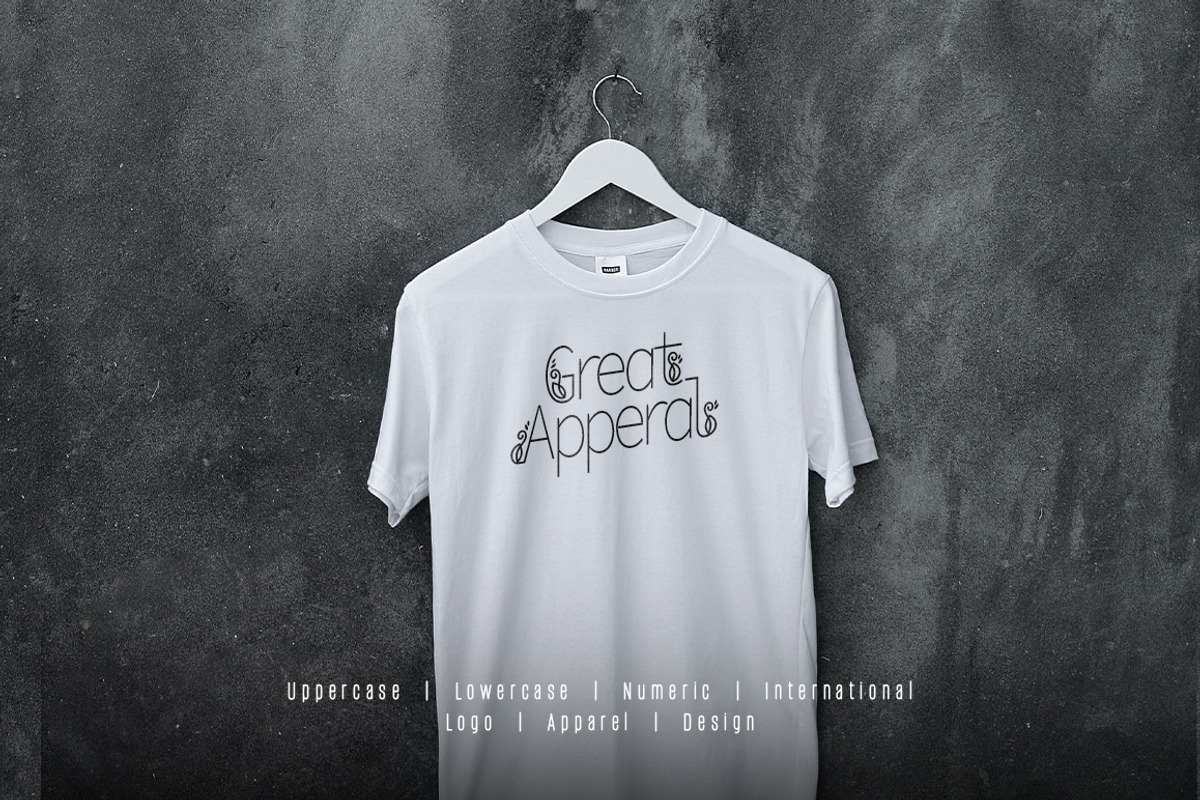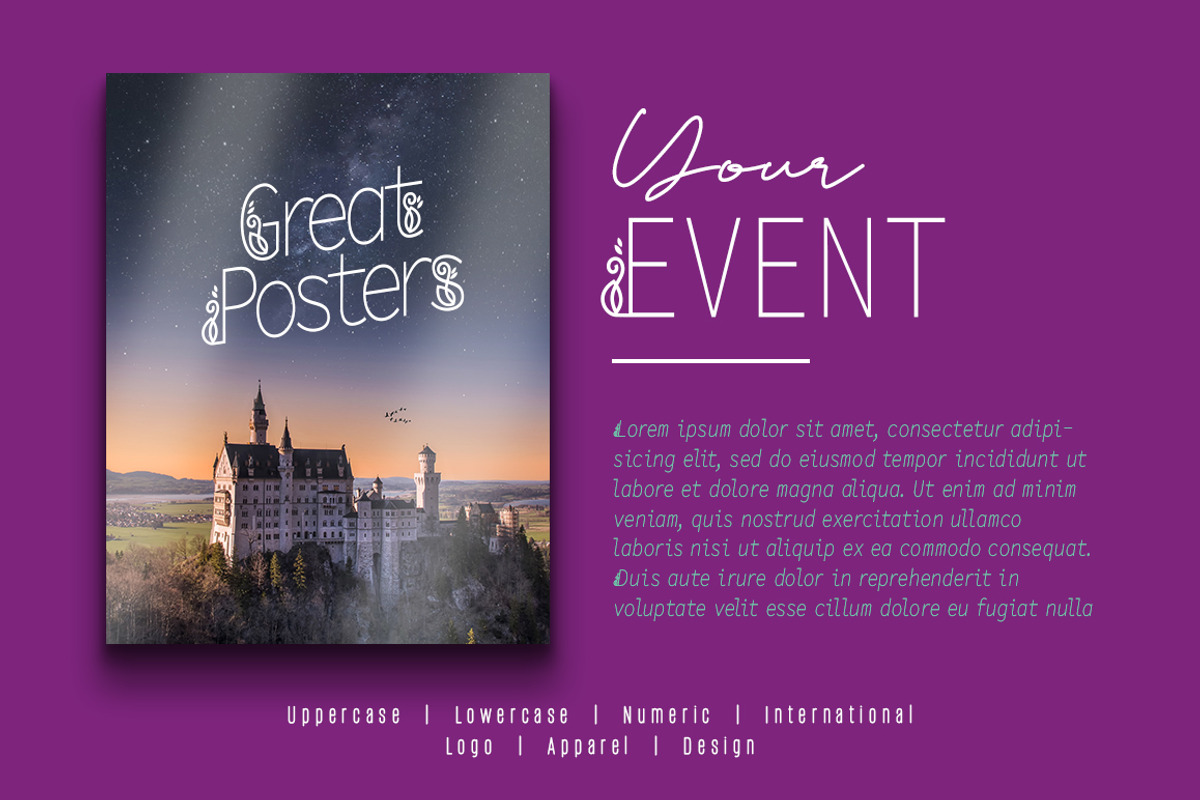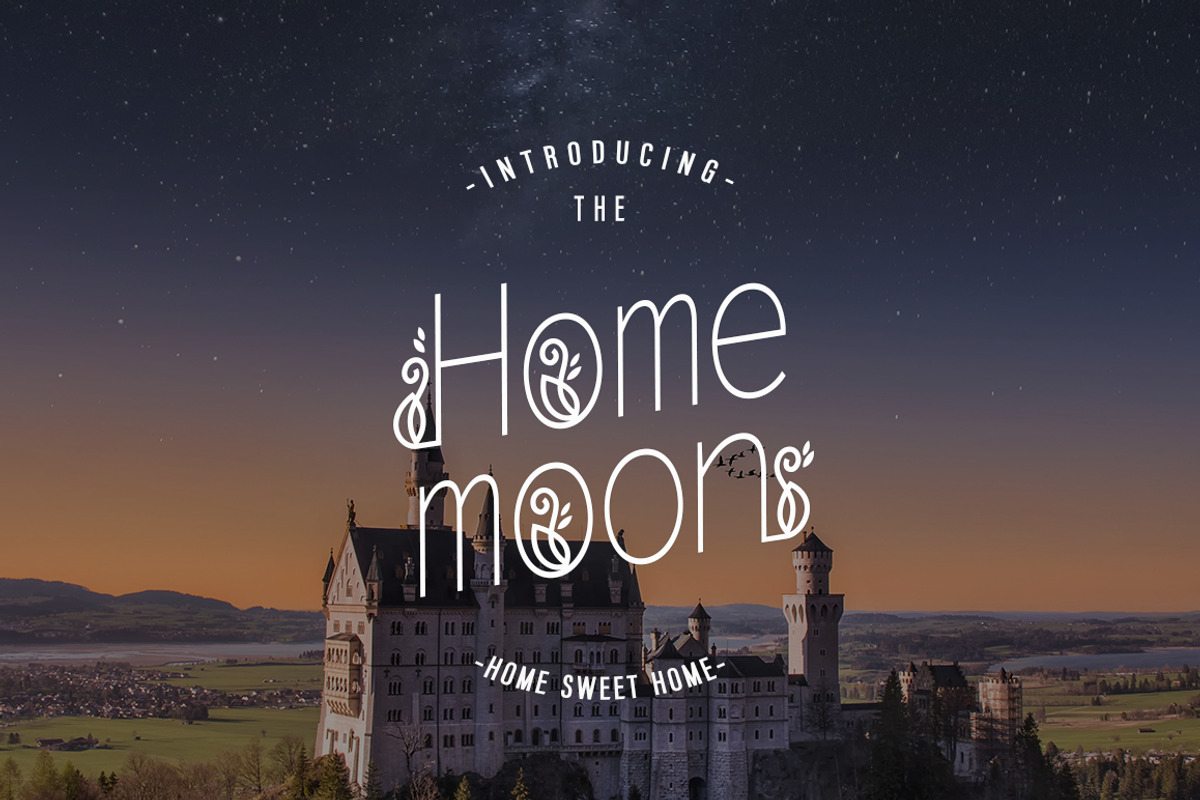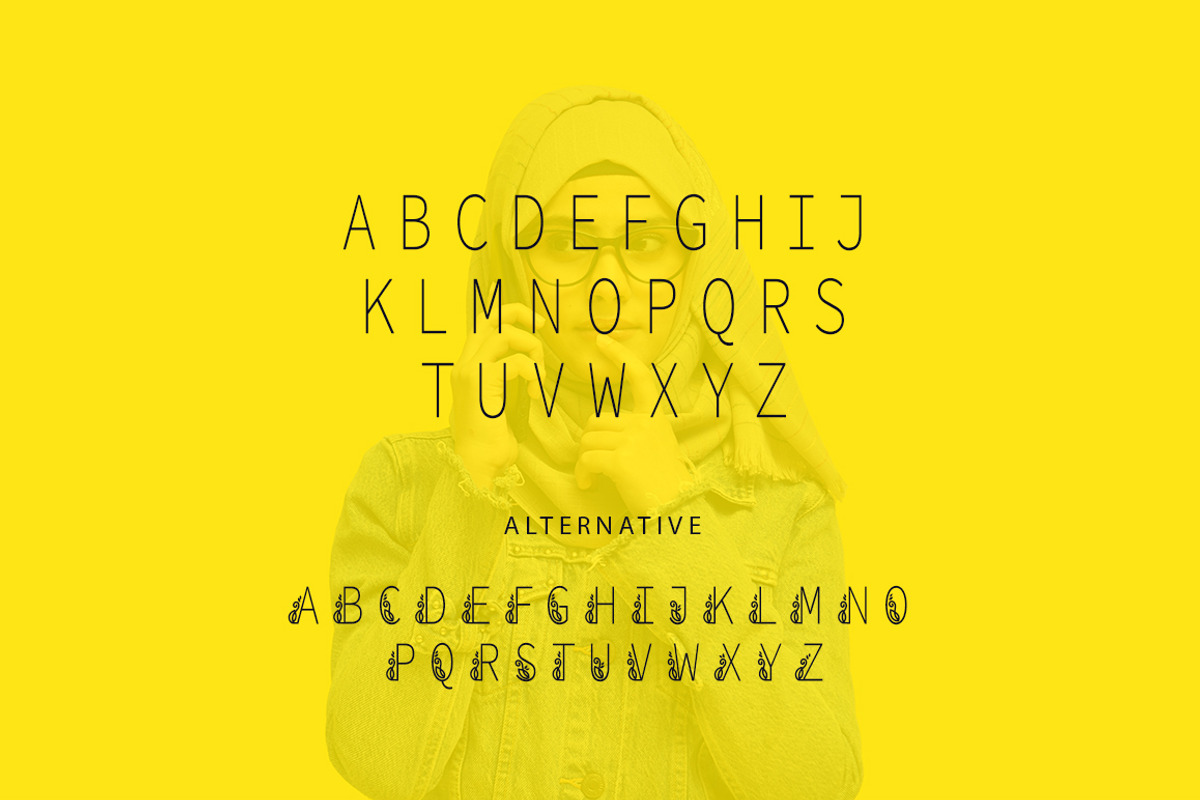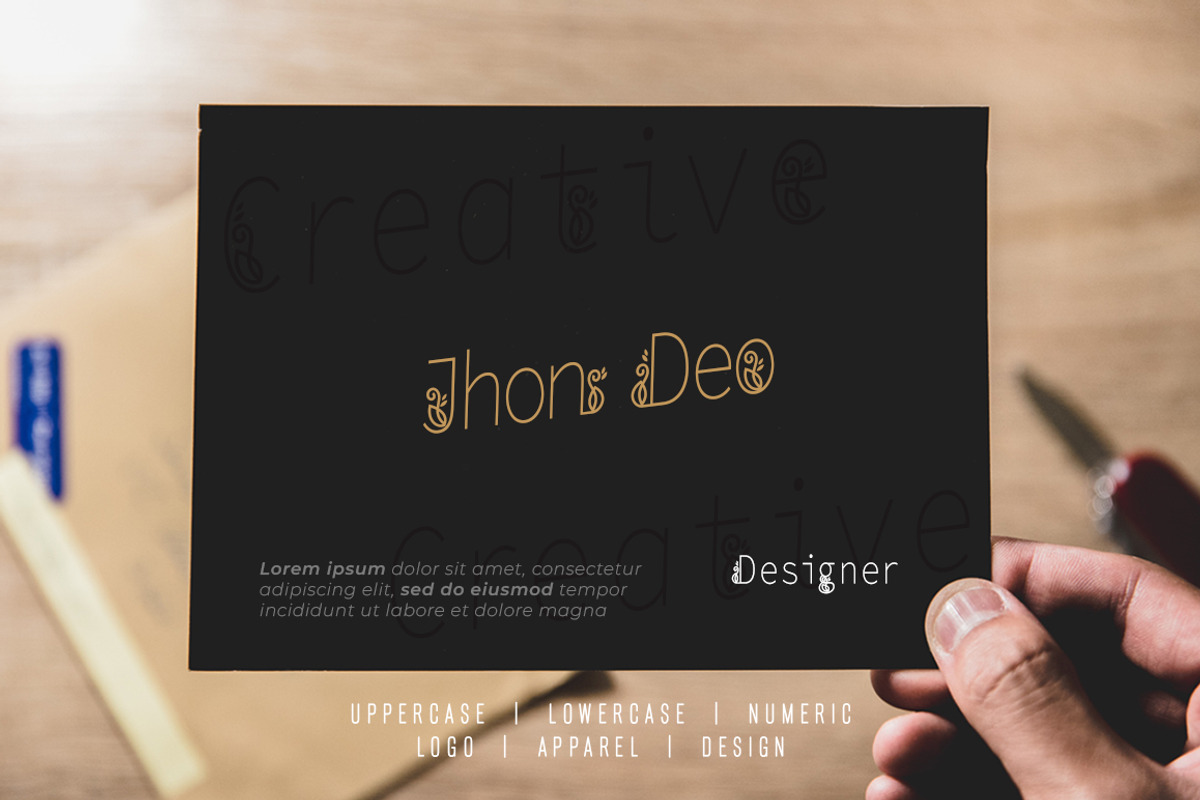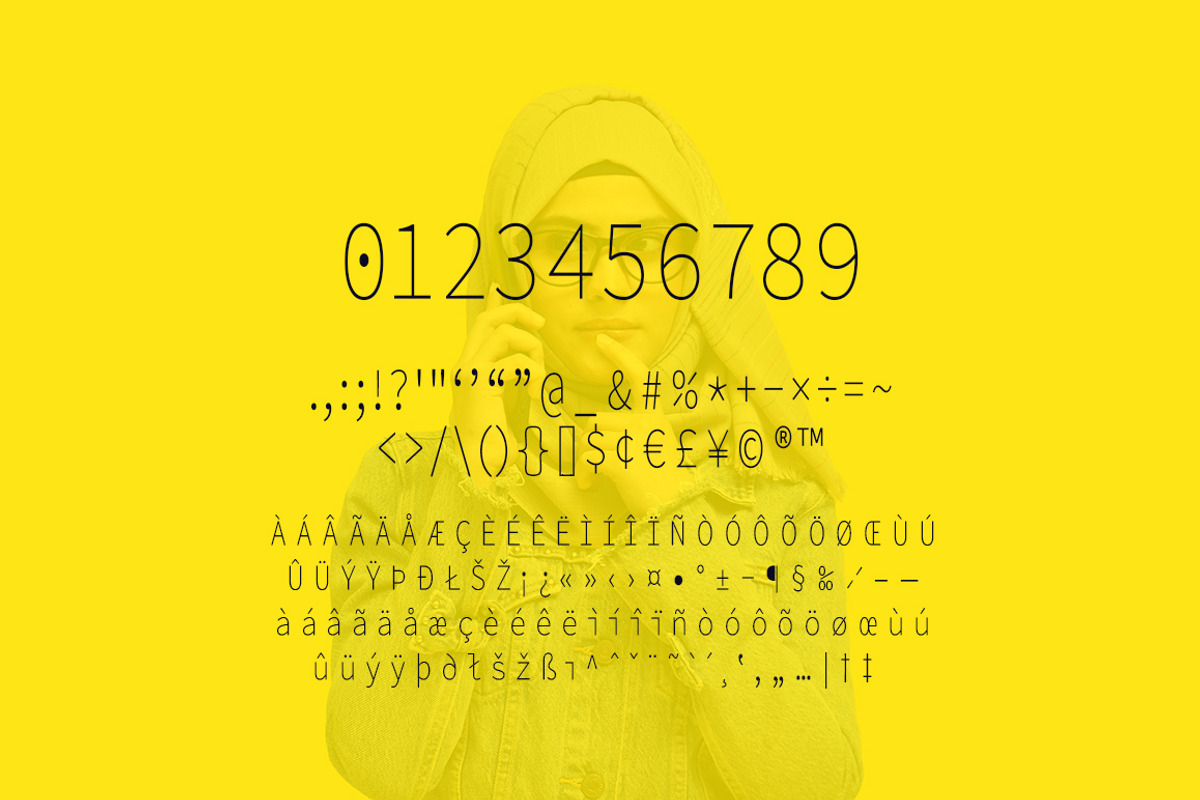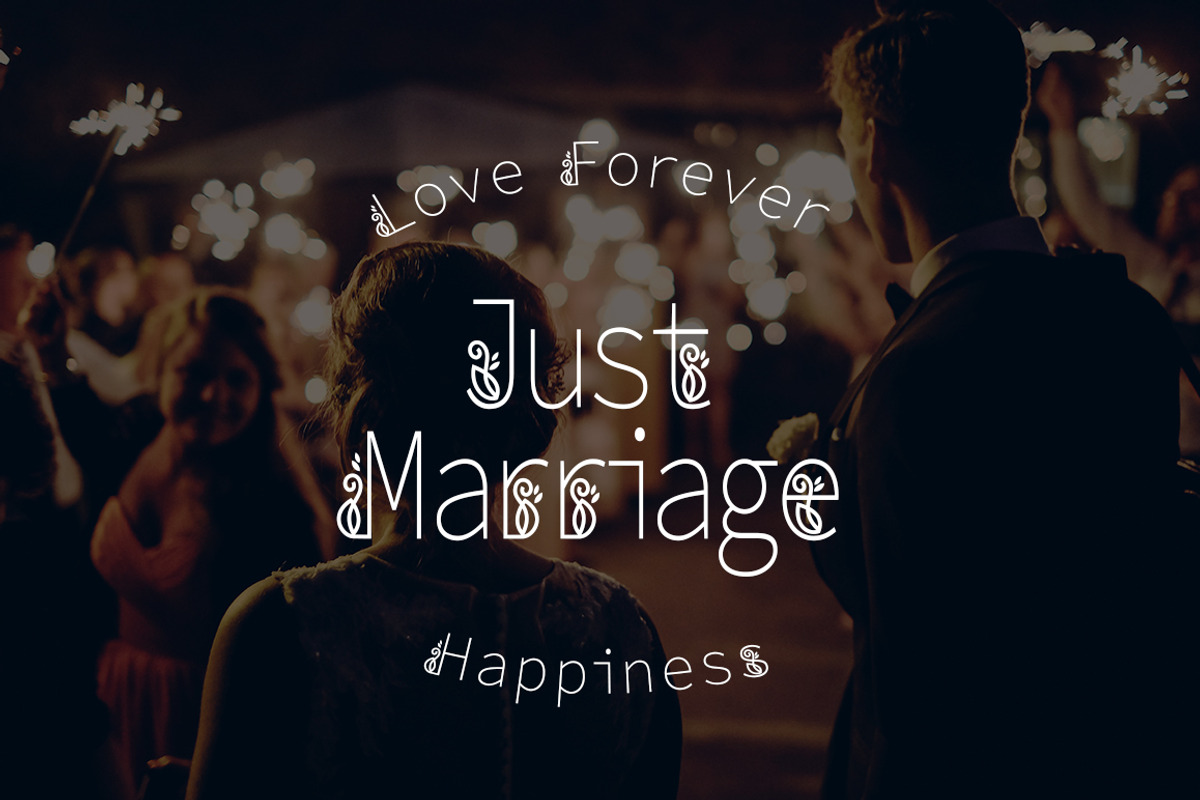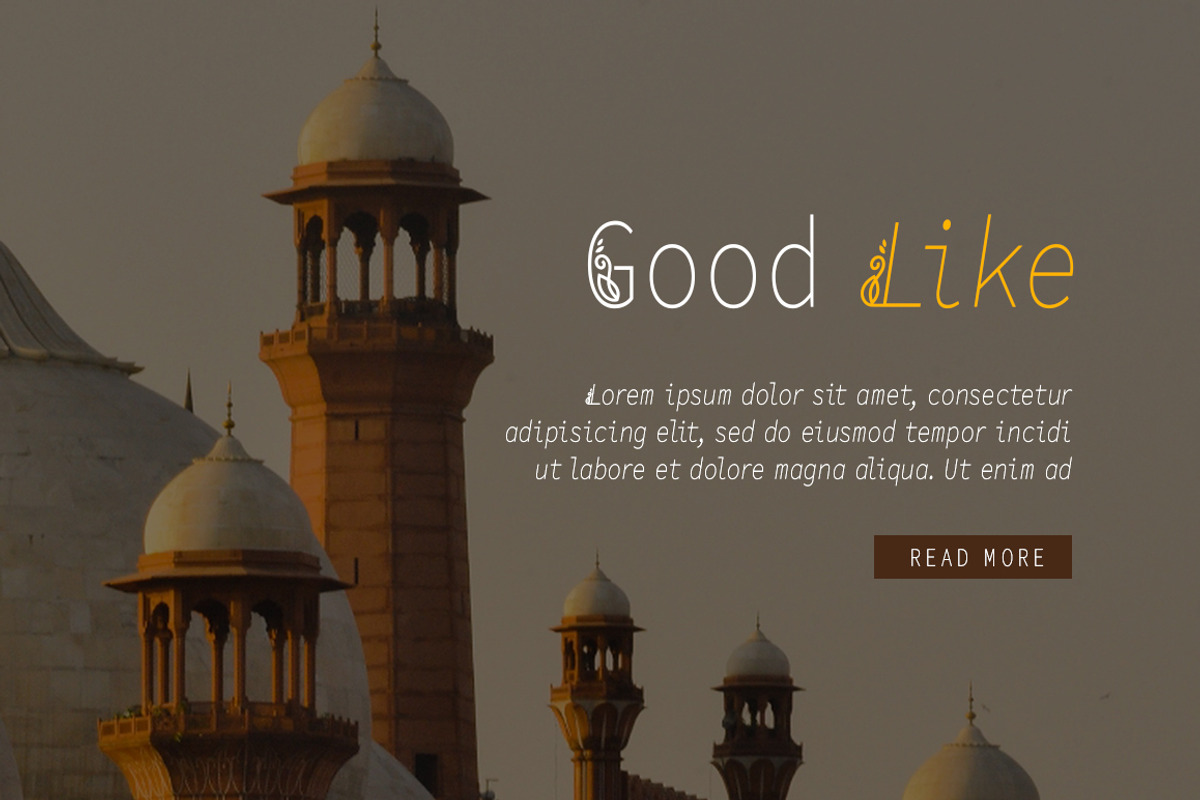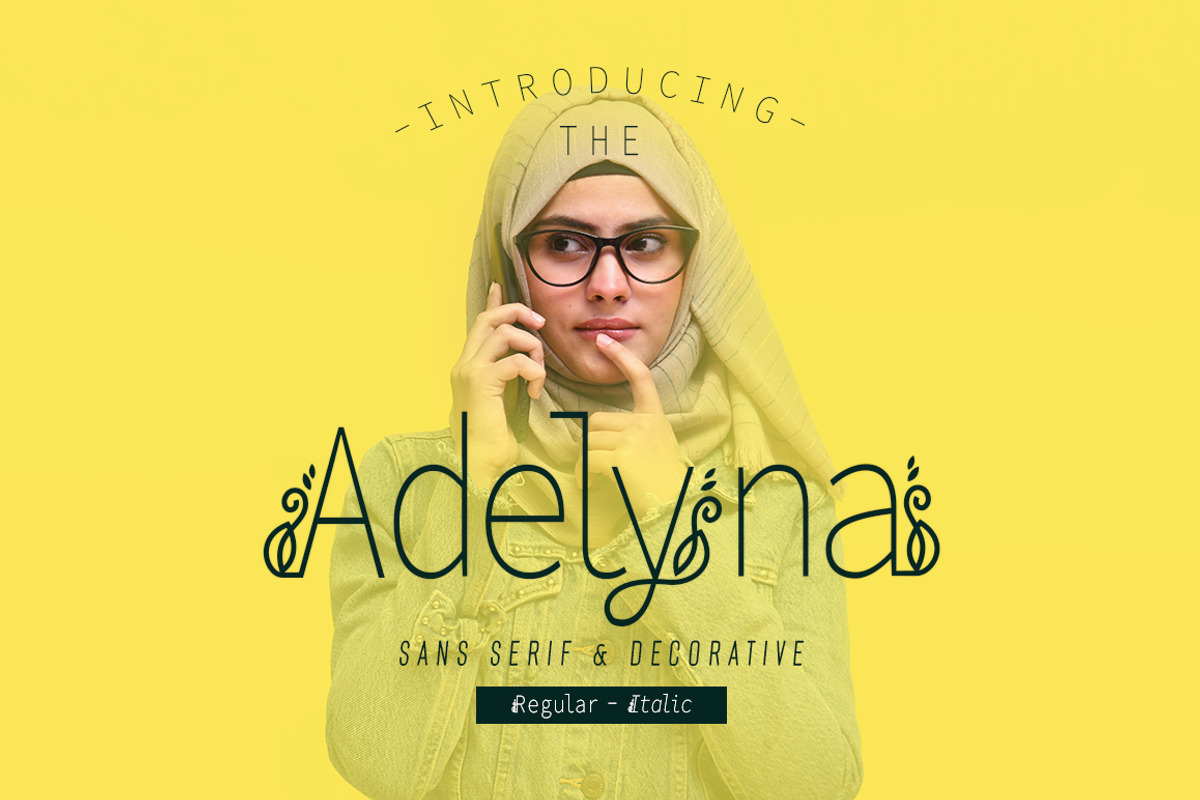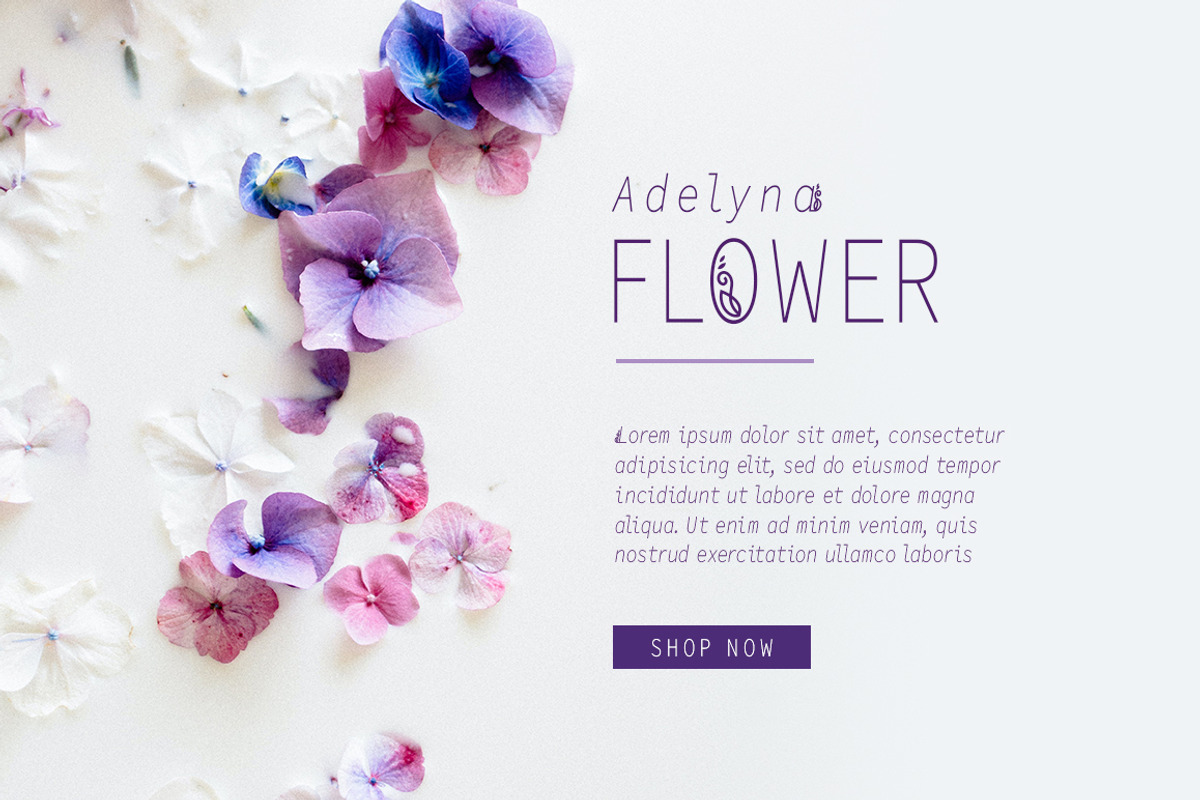
Adelyna Sans
Adelyna Sans Font very suitable for poster, for logo, music cover, clothing, and many many cool design projects. Adelyna Sans Font is uppercase and lowercas. Numeric and international font. Regular and Italic font.